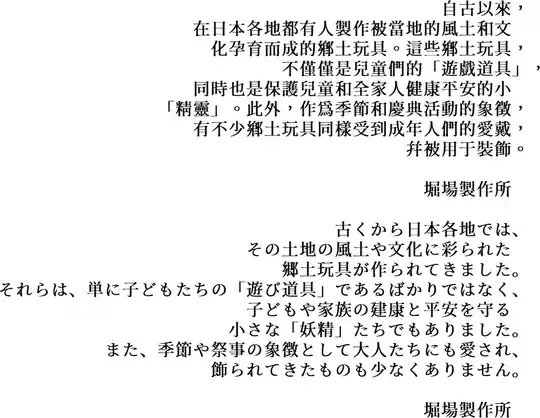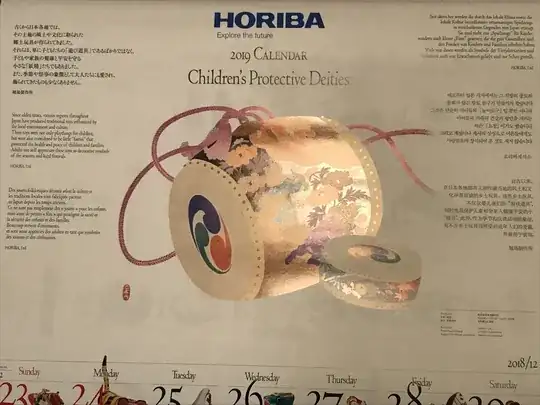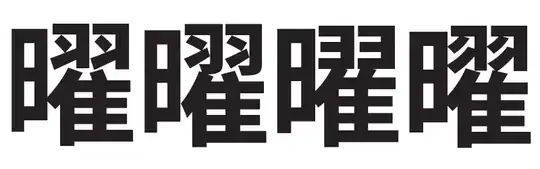
I’ve noticed that Japanese and Chinese writing tends to use different fonts. Japanese fonts tend use wider lines and more curves. Chinese fonts tend to use narrow angular lines and there are differences at the end of strokes as well.
I’ve noticed this even in Japanese where there are multilingual translations. There are differences even when the Chinese (traditional or simplified characters) text uses the same character as the Kanji. This seems to occur everywhere, from train stations to store menus. Often the different fonts will be displayed together on the same screen, page, or sign.
Is there a specific linguistic, cultural, or historical reason for this? Are Japanese and Chinese fonts different internationally or is this only in Japan?
It does make it easier to distinguish Japanese and Chinese texts but I suspect this is incidental and there’s another reason for it. Japanese and Chinese texts can be differentiated due to differences in vocabulary and whether they use Kana. We don’t use different fonts for other languages that use the same writing system (for example we write English and Italian in the same fonts). This is different to using foreign words in italics (Latin in English) or Katakana (English in Japanese) as these fonts are used entirely separately for translations and are not intermingled.
For a recent example, this is a calendar produced by a Japanese company. Chinese and Japanese versions clearly have different fonts whereas English, French, and German have the same font for the same characters.
HORIBA Calendar 2019
I assume you're specifically talking about kanji/hanzi glyphs. (Hiragana are obviously more cursive.) Basically the overall appearances of typical Chinese hanzi and Japanese kanji fonts are not significantly different in terms of line width, roundness, etc., just as English "A", French "A" and German "A" are rendered the same. If you compare recent professionally-made pamphlets of both languages from, say, Tokyo Disney Land, you should notice almost no difference.
If you noticed some difference, it's probably because it is hard for a designer to find a Chinese font that looks similar to the Japanese font they want to use. While ordinary Japanese designers have lots of Japanese fonts with lots of Japanese kanji, they cannot use them to produce natural-looking Chinese sentences, and vice versa, because there are large regional variants for many kanji/hanzi. As a consequence, they often have to choose a Chinese font that looks different from the one used in the Japanese version. It's very easy to find fonts that can render all major Western languages, but finding a good-looking "Unicode" font that satisfies both Japanese and Chinese readers is still difficult. Thanks to Adobe and Google, we now have at least one reasonable free font that offers consistent look across CJK languages. From Adobe Typekit Blog:
Introducing Source Han Sans: An open source Pan-CJK typeface
Source Han Sans, available in seven weights, is a typeface family which provides full support for Japanese, Korean, Traditional Chinese, and Simplified Chinese, all in one font.
With Ryoko’s designs in progress, we knew that to develop a truly successful Pan-CJK font, we would require expertise that could be found only in type foundries with years of in-country design experience. We chose to partner with Iwata to expand our Japanese glyph selection. In Korea, we went with Sandoll Communication, who also designed the Korean hangul (the native alphabet of the Korean language) and in China, we partnered with our longtime friends at Changzhou Sinotype. Our project had now grown to become a collaborative effort between five companies — something somewhat unprecedented in the world of type design.
Why was it important to get this expertise? Well, the writing systems for each language, particularly their ideographs that are based on historical Chinese forms, took different paths over time. While some characters remained unchanged and common across the languages, others morphed into regional variations. One can see these in the glyphs represented below. While the variations may be subtle, especially to the Western eye, they are very important to the users of each language.
Glyphs of 曜 in different CJK languages
Ideograph U+66DC. From left to right: Simplified Chinese, Traditional Chinese, Japanese, and Korean.
EDIT: In the case of that calendar, I'm pretty sure that consistency was not intended in the first place, because Japanese was clearly the primary language that should stand out. This Japanese font is probably 筑紫Aオールド明朝, a popular but expensive Japanese font with antique-looking stylized hiragana. It's adding a good traditional flavor, but it's not a reasonable choice when cross-language consistency is considered important. On the other hand, the Chinese font seems to be some generic-looking serif to me. So this is what happens when a Japanese designer does something mainly targeting at Japanese audience :)
Adobe's Source Han Sans (or Google's Noto Sans CJK) has been very recently updated to version 2.0 which adds a second flavor of Traditional Chinese for Hong Kong. –  Dec 27 '18 at 08:59
• You can use the CJK Font Variants feature of the open-source app Unicode Plus to display CJK characters in the five embedded CJK typefaces: Japanese, Korean, Simplified Chinese, Traditional Chinese, Hong Kong Chinese. –  Dec 27 '18 at 09:15
• This is a good answer but I doubt that this is solely for technical reasons. There are recent examples of differences between fonts for Chinese characters and Kanji, even when the character is the same. This includes theme parks and museums. – Tom Kelly Dec 28 '18 at 12:45
Note characters like「遊」,「道」,「平」, and「精」, which are handwritten identically across PRC, Hong Kong, Republic of China (Taiwan), and Japan: the standard practice for the Chinese font is to just adopt KDF, while the Japanese variant made a new glyph according to the Jōyō standard.